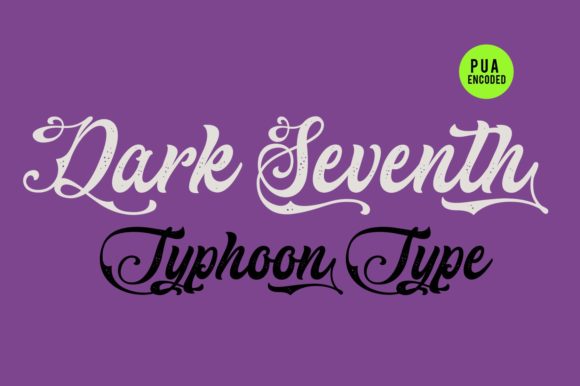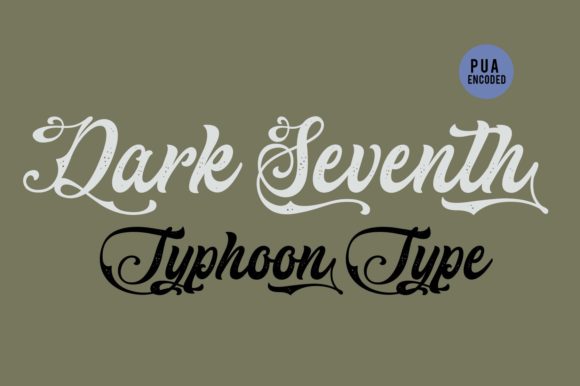
The Elusive Font: A Designer’s Journey with Dark Seventh
I still remember the frustration of working on a project, hours pouring into finding the perfect font, only to come up empty-handed. My client wanted something elegant, flowing, and unique – a font that would elevate their brand and make it stand out. As a designer, I’ve been there, done that, and got the t-shirt (which, by the way, was probably designed with a font I loved). But on this particular project, I was stuck. That was until I stumbled upon the beautiful Dark Seventh Font.
First Impressions: A Delicate Beauty
Dark Seventh is a delicate, elegant, and flowing handwritten font that has stolen my heart. Its beautiful, well-balanced characters make it a versatile match for a wide pool of designs. I was immediately drawn to its refined aesthetic and the way it seemed to dance across the page.
- ✨ Elegant and refined aesthetic: Dark Seventh has a sophisticated look that’s perfect for designs that require a touch of luxury.
- ✅ PUA encoded for easy access: The font’s PUA encoding means I can access all the glyphs and swashes with ease, making it a joy to work with.
- ✅ Well-balanced characters: The font’s characters are beautifully balanced, making it easy to read and visually appealing.
While Dark Seventh is an amazing font, there are a few things to keep in mind:
- ⚠️ Limited use in body text: Due to its elegant and refined nature, Dark Seventh might not be the best choice for body text. It’s better suited for headings, titles, or short paragraphs.
- 🤔 Some swashes might not work well in all contexts: While the font’s swashes are beautiful, they might not work well in all design contexts. A little experimentation is required to find the perfect fit.
The Designer Inspiration Behind Dark Seventh
While I couldn’t find any information on the designer behind Dark Seventh, I like to imagine that it was created by a team of designers who wanted to craft a font that would bring elegance and refinement to any design. Perhaps they were inspired by the flowing scripts of the past, or maybe they simply wanted to create a font that would make designers’ lives easier. Whatever the inspiration, Dark Seventh is a beautiful font that’s sure to delight.
Q: What is PUA encoding, and how does it benefit me?
A: PUA (Private Use Area) encoding allows you to access all the glyphs and swashes in the font, making it easier to create unique and customized designs.
Q: Is Dark Seventh suitable for body text?
A: While Dark Seventh is a beautiful font, it’s better suited for headings, titles, or short paragraphs. For body text, you might want to choose a font that’s more readable and easier to read.